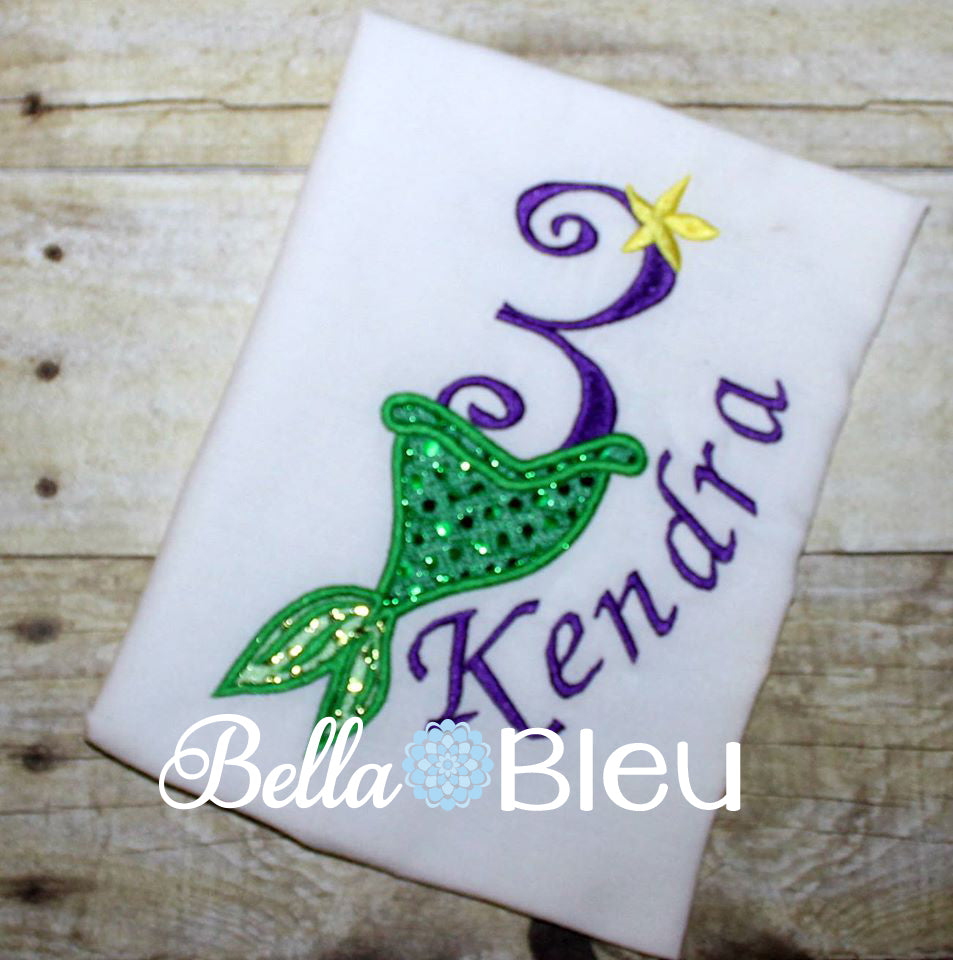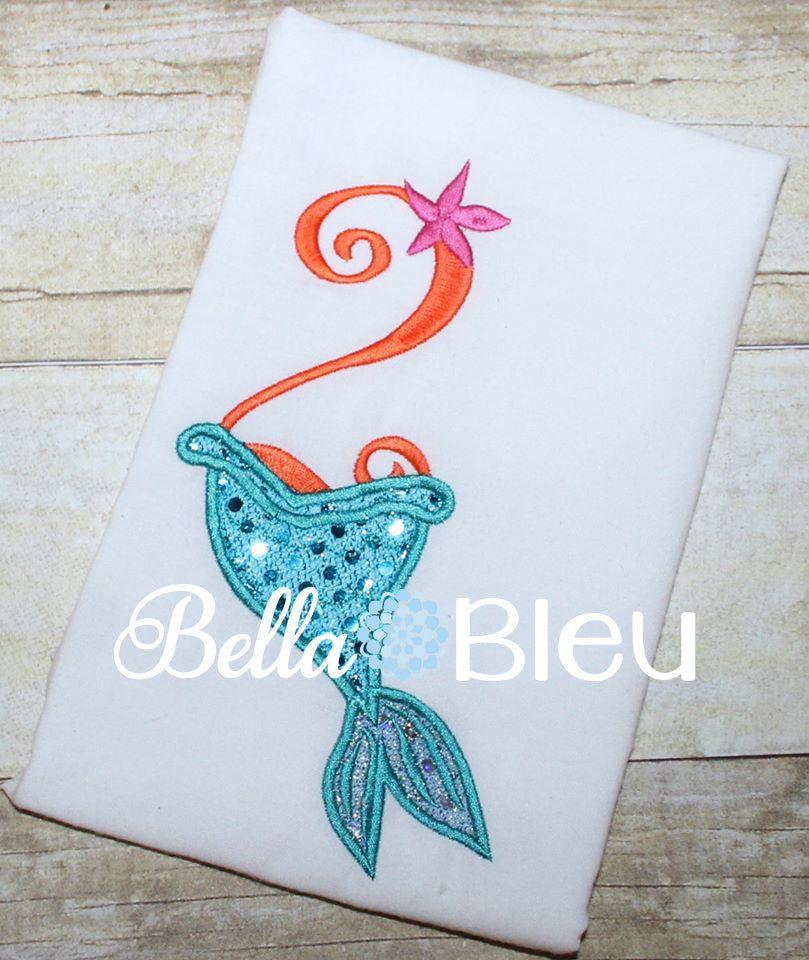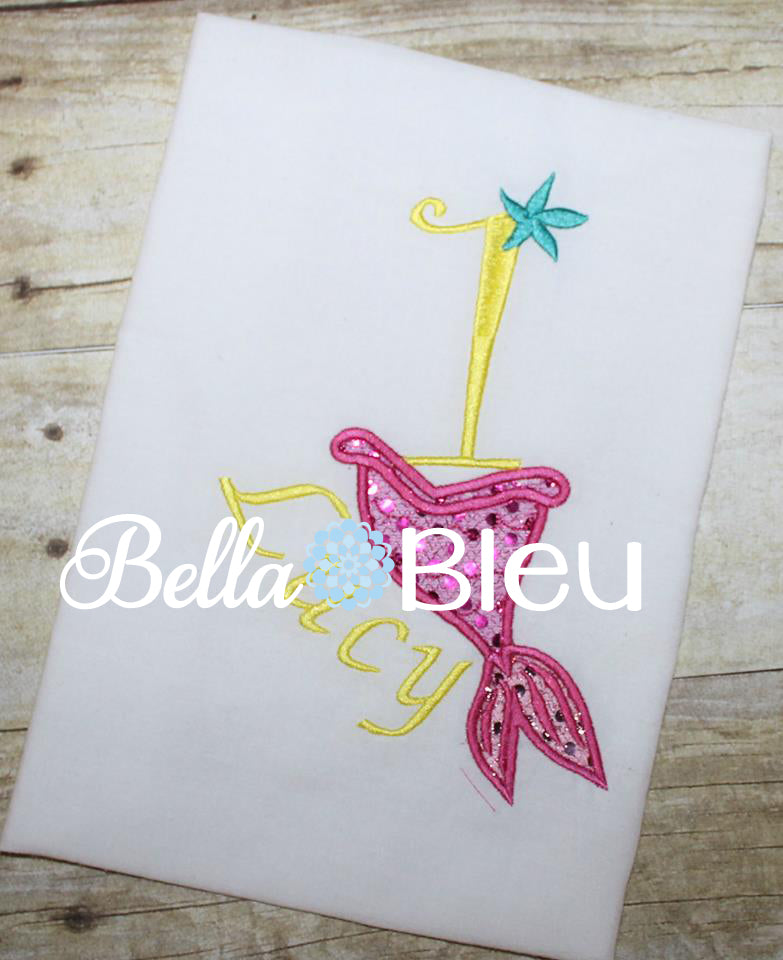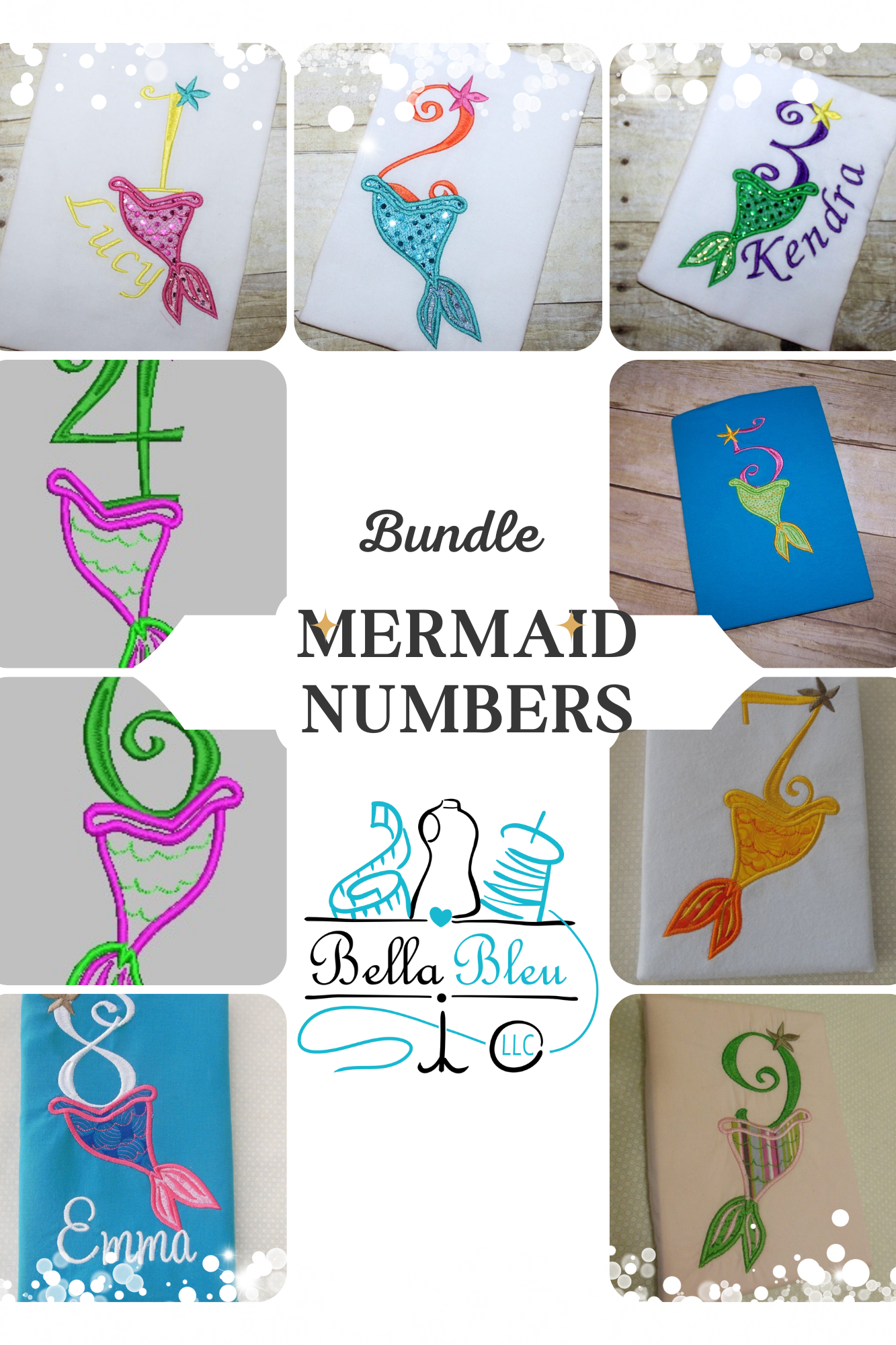
Mermaid Number Font Set
Mermaid Number Font from 1-9
Its an applique mermaid tail with satin numbers  Machine Embroidery Design
This designs perfect for the front of shirts or tote bags.